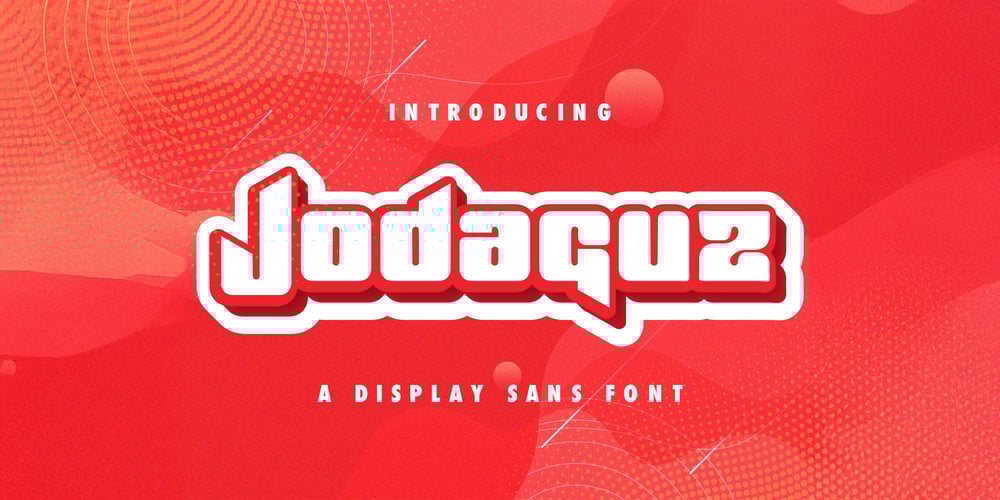
Jodaguz
Jodaguz font
Jodaguz Font Family was designed by Virgiawan Listanto and published by Stringlabs Creative Studio. Jodaguz contains 1 styles and family package options. Elevate your designs with Jodaguz, a modern and bold display sans font that is perfect for making a statement. Jodaguz combines readability with a touch of elegance, offering a unique blend of strength and sophistication.